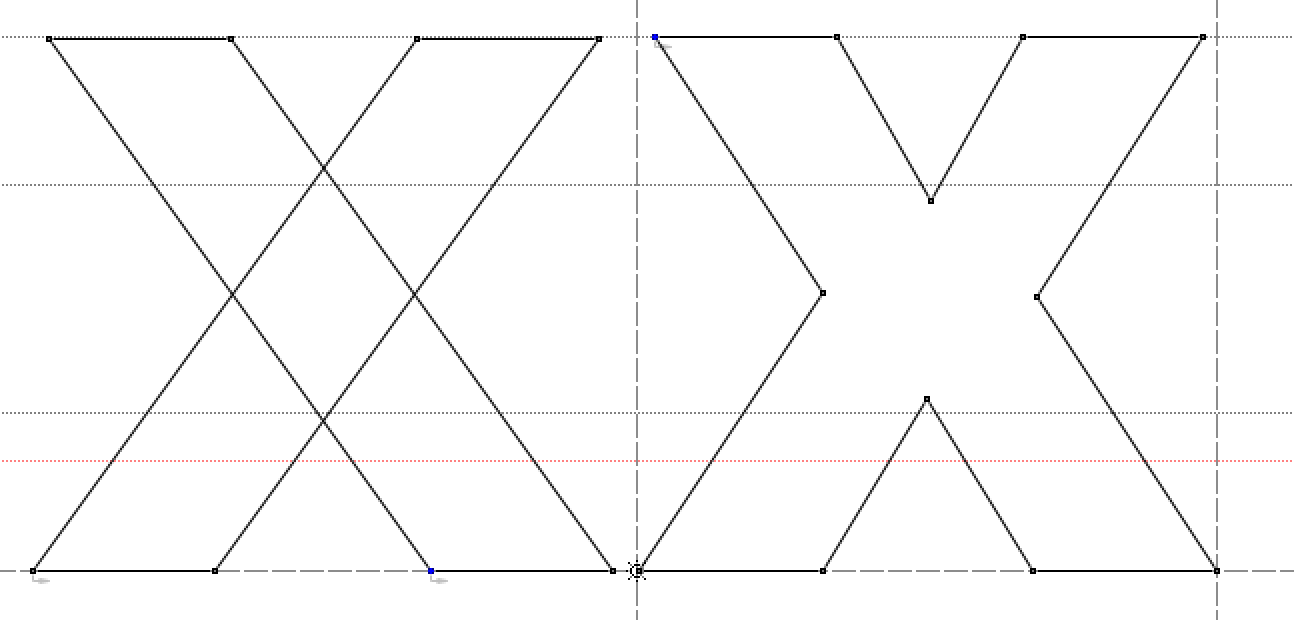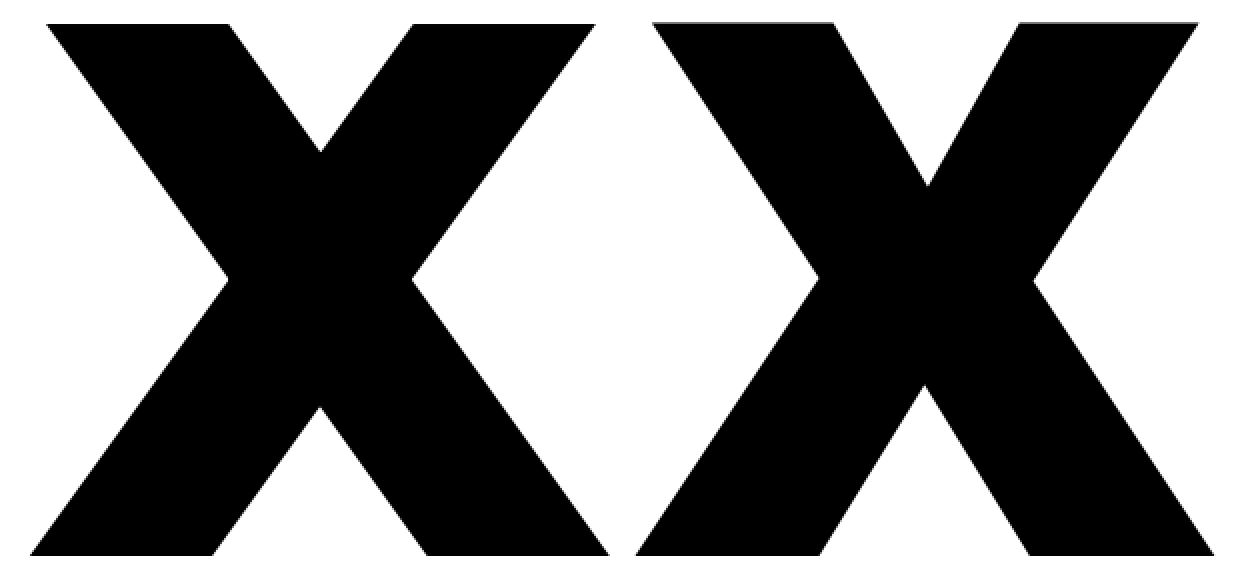
Why isnt this "X" symmetrical?
Hey, wondering if anyone can explain why some X's are designed asymmetrically? Noticed it in a few fonts, the example shown here is a capital X from Frutiger Ultra Black. Thanks.
It’s one of the many optical corrections type designers usually add. Not everything that would be mathematically correct, looks correct. In this case, you have interacting diagonals which is troublesome. Google “optical illusion parallel lines” for example.
Here is Arial without compensation (left) and the actual version (right).
Which one would you prefer?